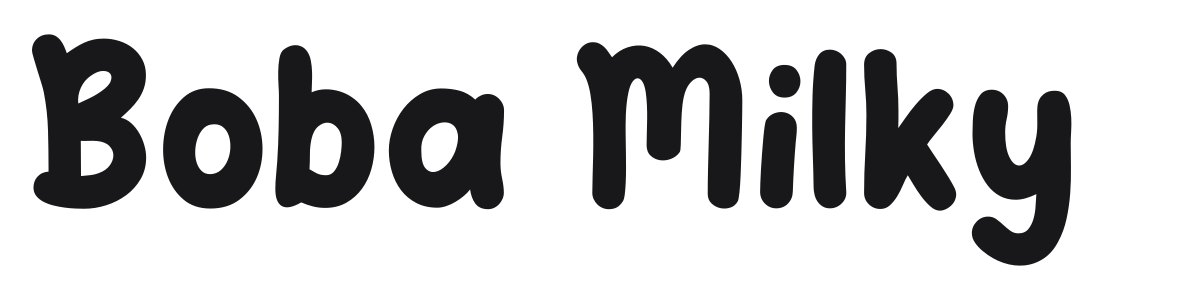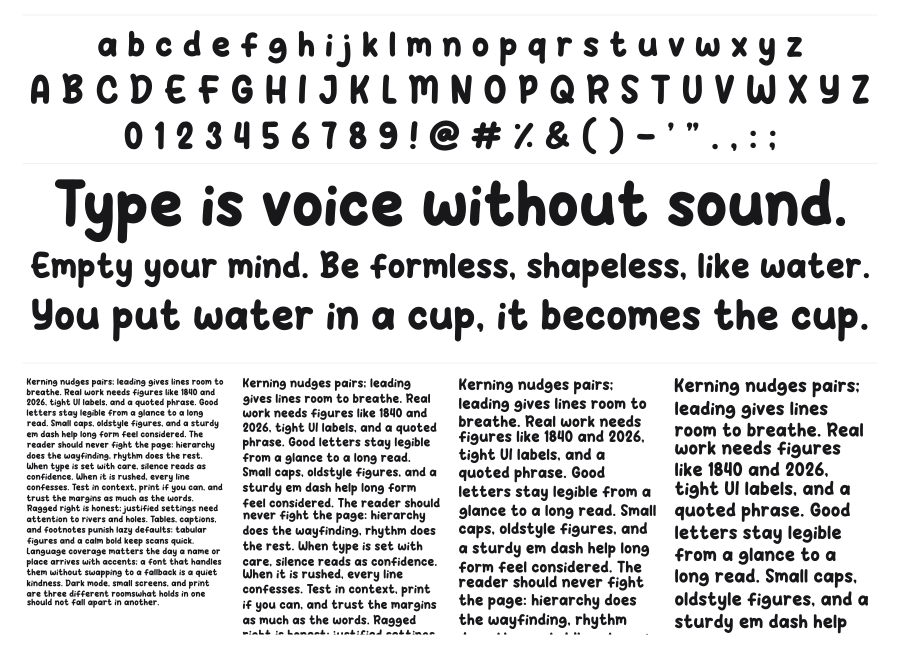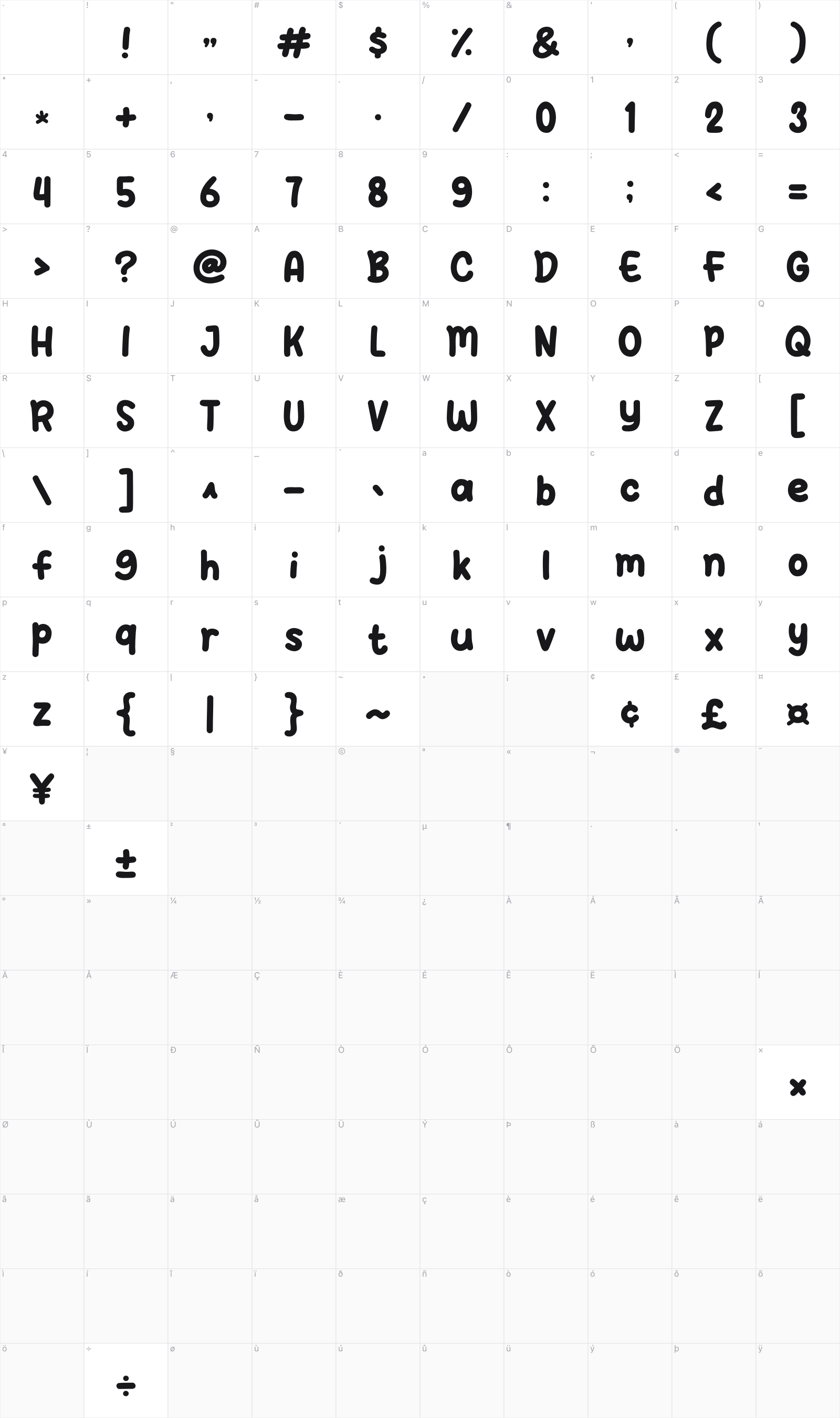
Boba Milky
Boba Milky is a chunky, rounded bold sans with soft, inflated letter shapes inspired by the cheerful world of bubble tea culture. Every terminal is fully rounded and the strokes stay thick throughout, giving the whole typeface a plush, squeezable warmth. It works best at large sizes for logos, packaging, and playful headlines.